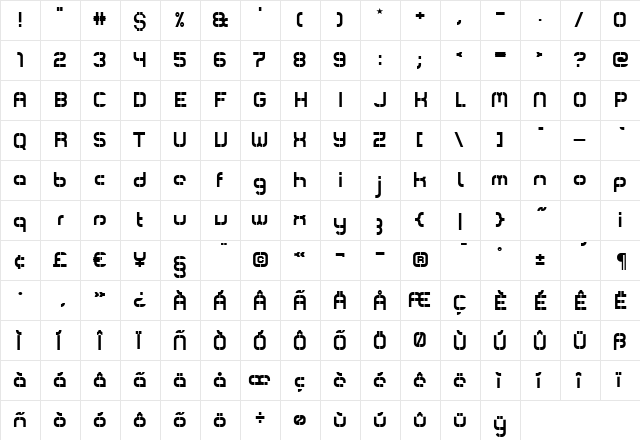
ComsatBox Regular
Design Context for ComsatBox Typeface
ComsatBox takes a measured approach to typography — its balanced proportions and neutral character make it a reliable workhorse for both digital and print work.